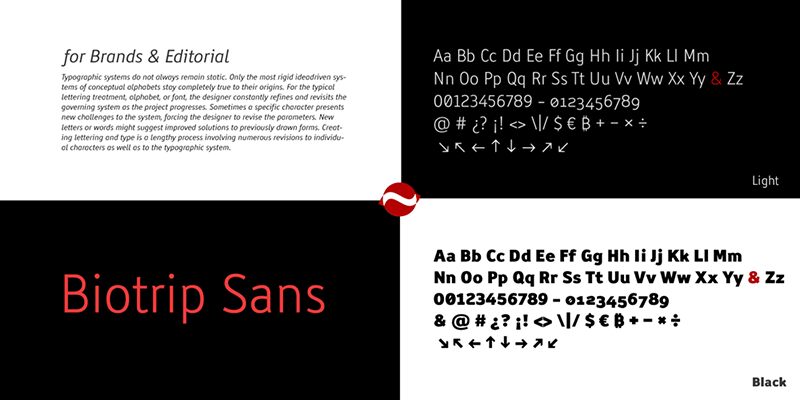
Biotrip Bold
Biotrip Bold font by Fernando Haro of deFharo is a free sans serif typeface that hits that sweet spot between chunky impact and everyday readability. Its wide, rounded shapes feel robust and confident, but the softened corners keep it warm rather than shouty. Letters sit close without feeling cramped, giving headlines a solid, inky block of color that still scans quickly on screens and in print.
Using Biotrip Bold, you can push strong branding, app interfaces, posters, packaging, social graphics, and bold website headers without swapping fonts for body snippets or short captions. This free font shines when set large, then paired with a lighter weight from the Biotrip family or a clean text sans to handle longer copy.
Biotrip Sans is a friendly typeface family that is, above all, a journey. A journey (Trip) from the purity of geometry to the warmth of the organic (Bio).
Biotrip Sans comprises 14 methodically designed fonts, distributed across 2 styles (Regular and a genuine, flowing Italic) and 7 weights, ranging from the ethereal elegance of Light to the powerful impact of Black.